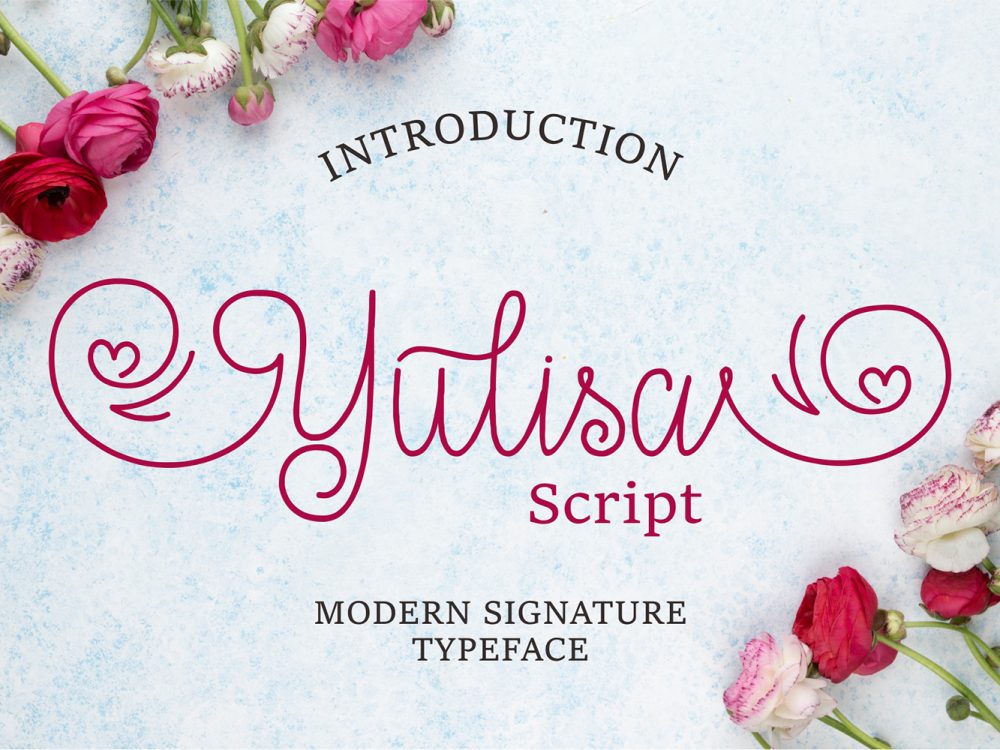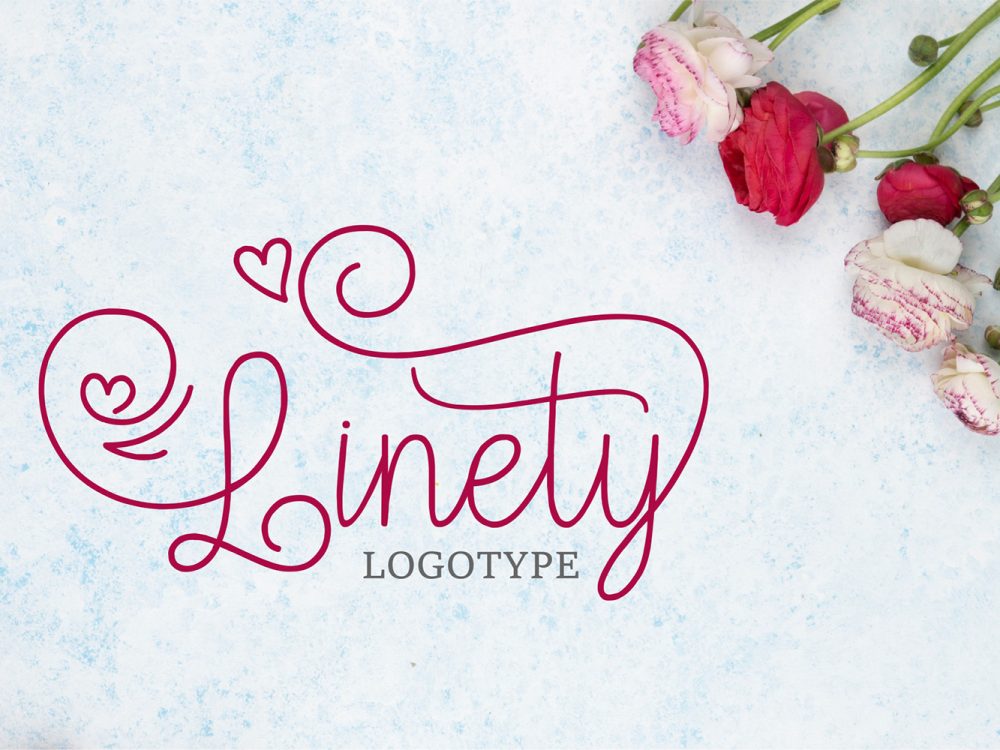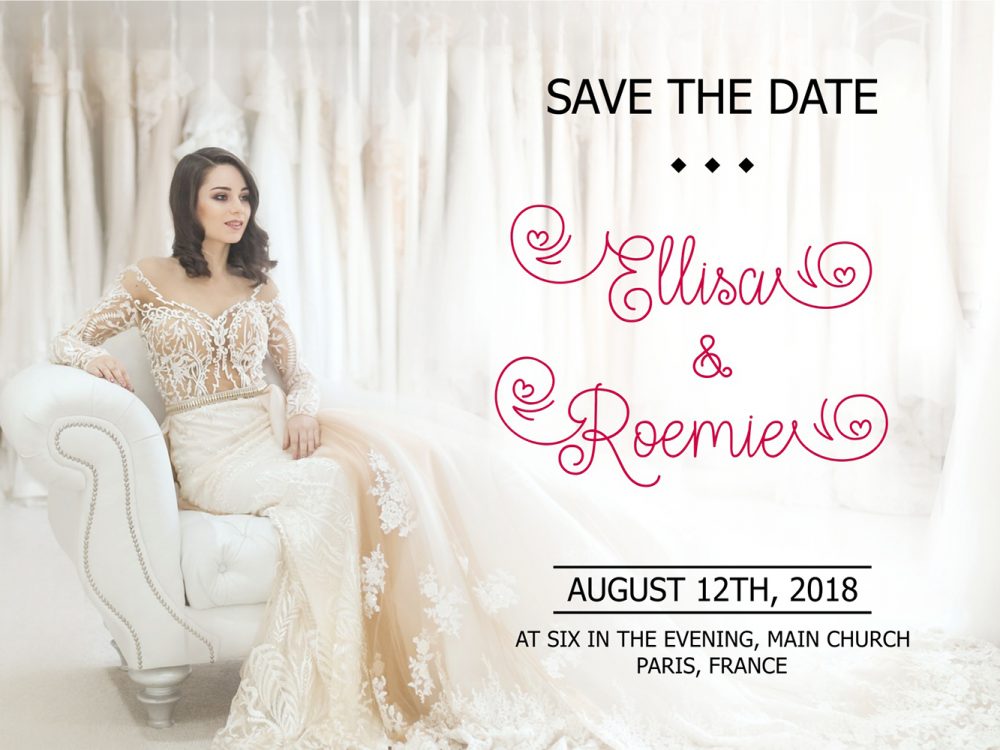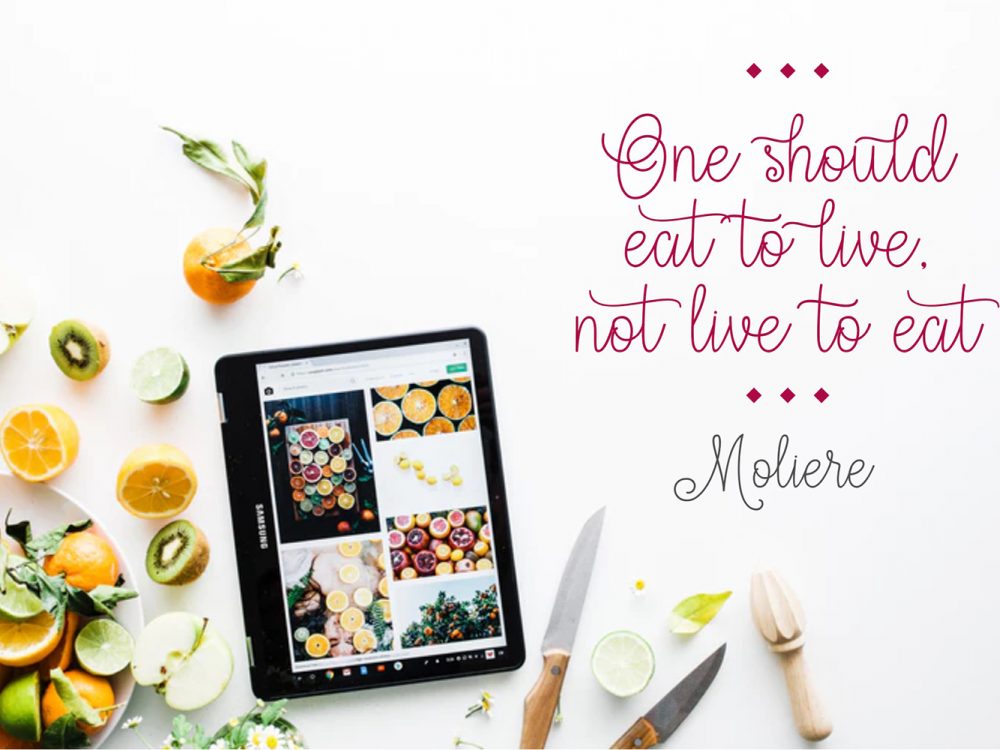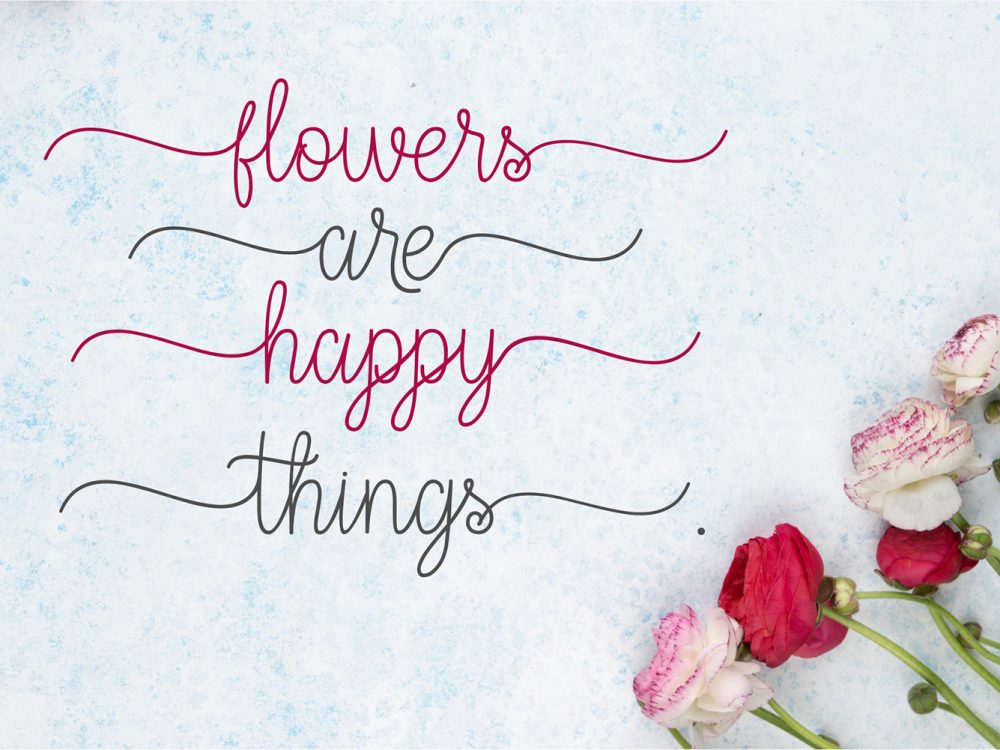
Yulisa Script Free Font
Yulisa Script Free Font is a modern script font that feels very elegant that features a modern style among other fonts. This font is very well suited for various projects that require a curly handwritten font. Use this font to create romantic posters, wedding invitations, greeting cards, branding, flyers, t-shirt and pillow prints, and more. If you like it don’t forget to check out the full version.